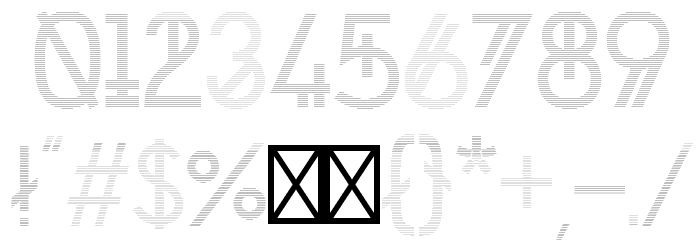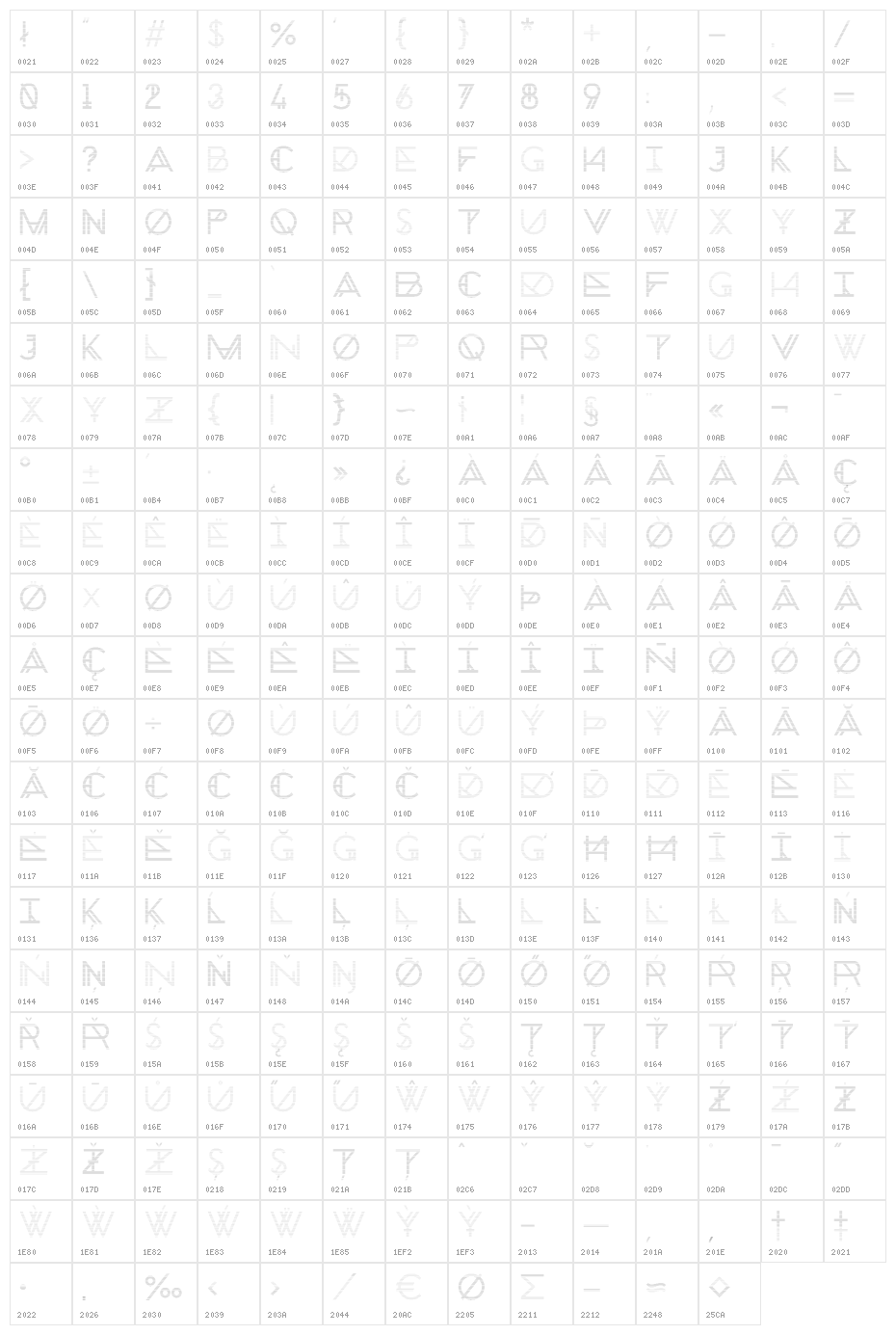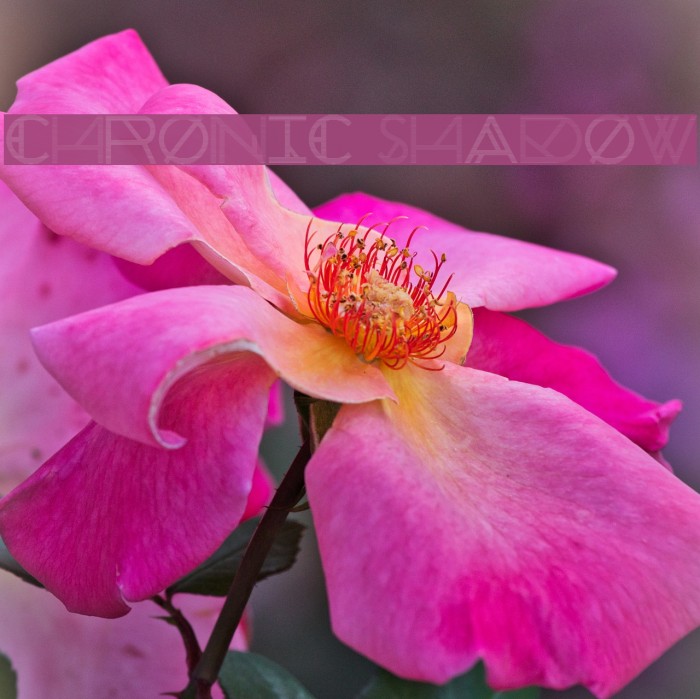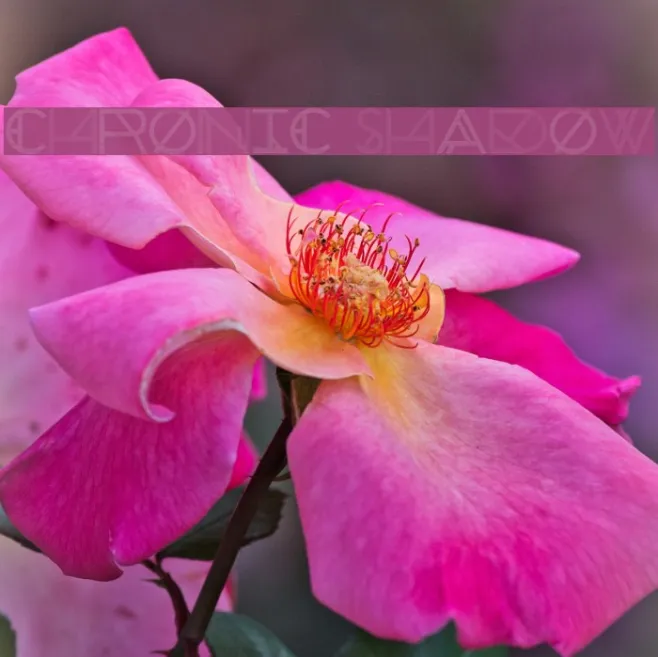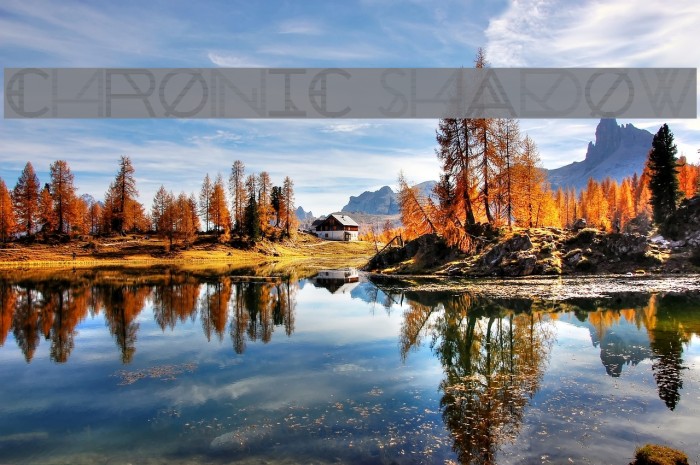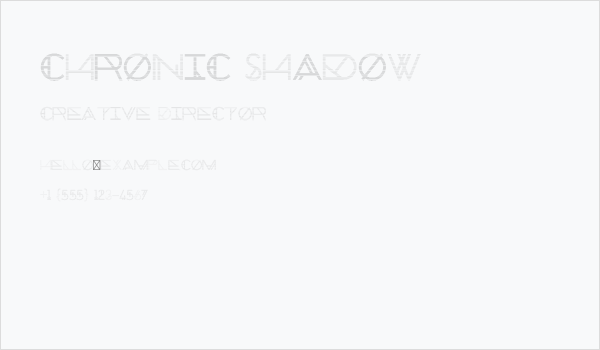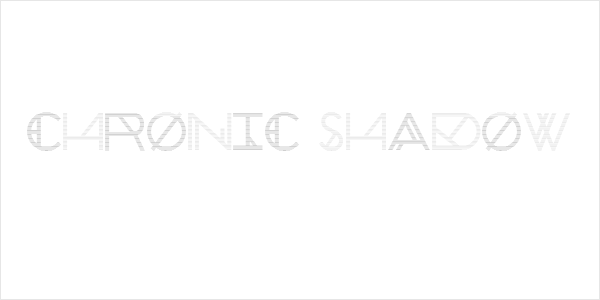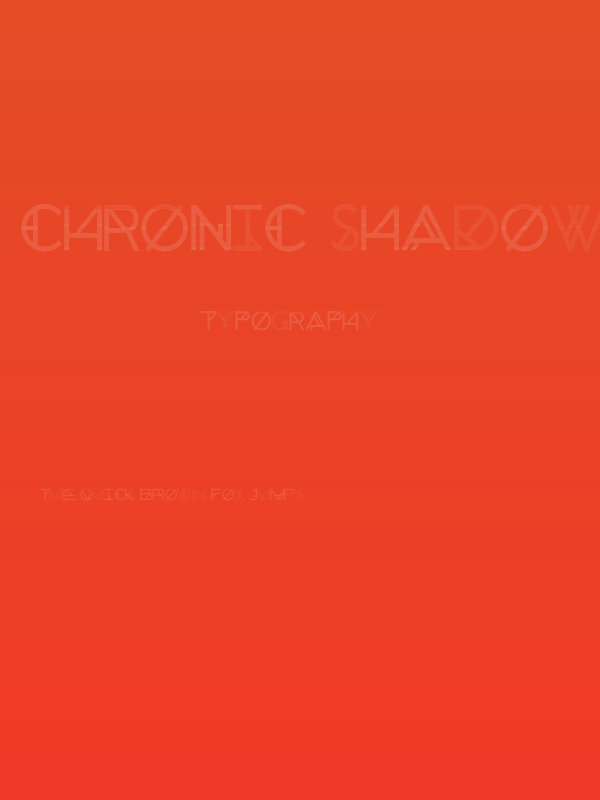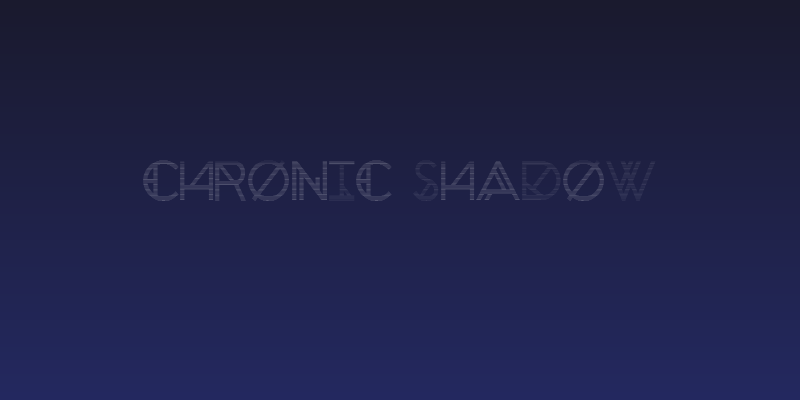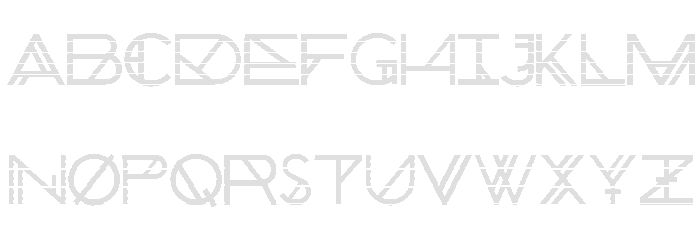
Chronic Shadow Font
Chronic Shadow Description
This font features a unique and modern design with a shadow effect that gives it a three-dimensional appearance. The characters are constructed with a series of parallel lines, creating a striped pattern that adds depth and texture. The uppercase and lowercase letters maintain a consistent style, with geometric shapes and sharp angles. The numerals and special characters follow the same design principles, ensuring uniformity across all elements. This font's distinct style makes it stand out, making it suitable for creative and bold design projects.
| Proposed Projects | Ideal for branding, posters, album covers, and any project requiring a bold, modern aesthetic. |